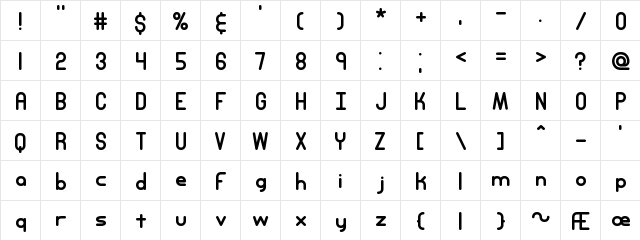
Entangled Plain (BRK) Normal
Design Context for Entangled Plain (BRK) Typeface
Entangled Plain (BRK) offers clean, dependable letterforms without strong stylistic allegiance, making it a practical choice for designers who need flexibility.
Pro Tip: Pair Entangled Plain (BRK) with a font of contrasting weight or personality to build a more expressive typographic hierarchy.